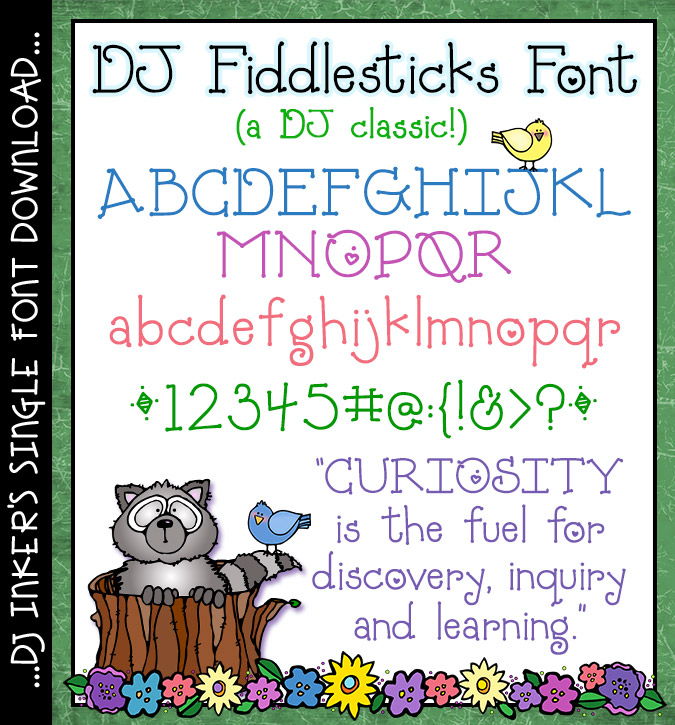
DJ Fiddlesticks font is simple, cute serif lettering by DJ Inkers
Good night pillow with DJ Fiddlesticks Cricut lettering by DJ Inkers
DJ Fiddlesticks Font Download
DJ Fiddlesticks is simple, cute, classic DJ Inkers. This versatile font is definitely a customer favorite. It's easy to use, easy to read and fun to type with.  Perfect for early education, home, crafting and creating smiles.